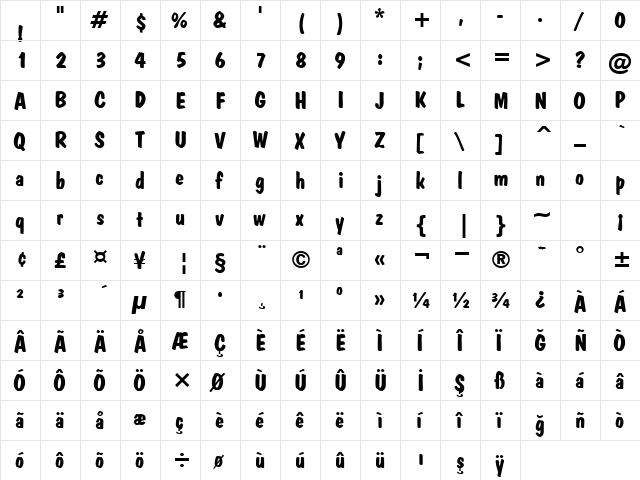
00249 Regular
Design Context for 00249 Typeface
00249 offers clean, dependable letterforms without strong stylistic allegiance, making it a practical choice for designers who need flexibility.